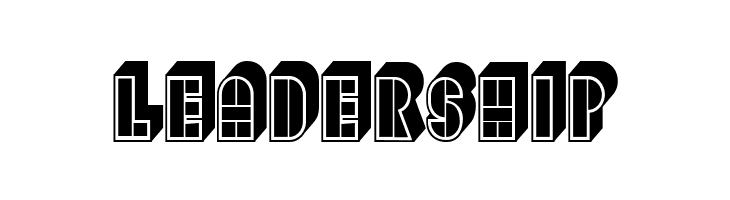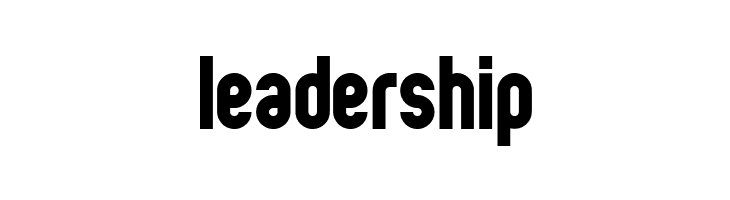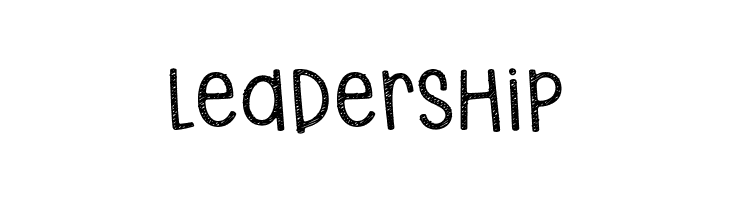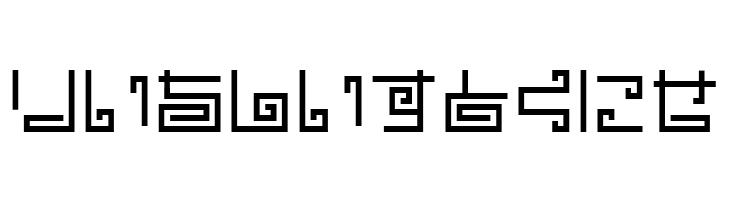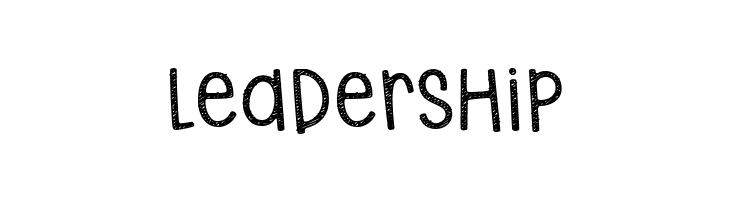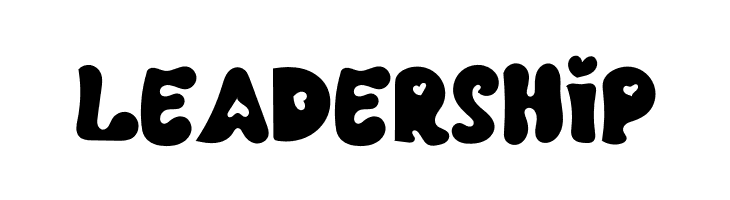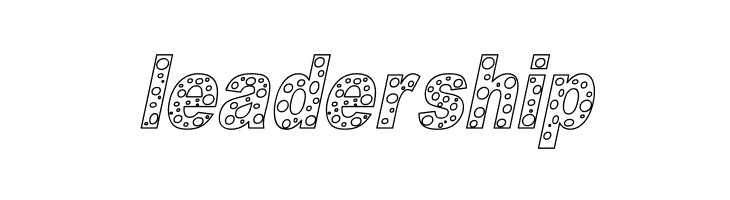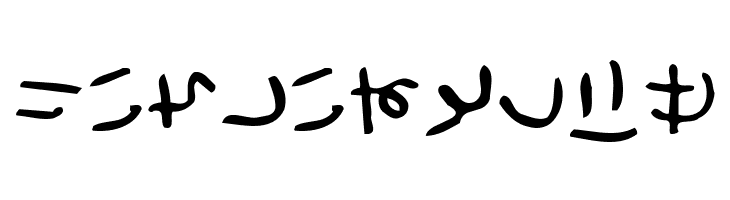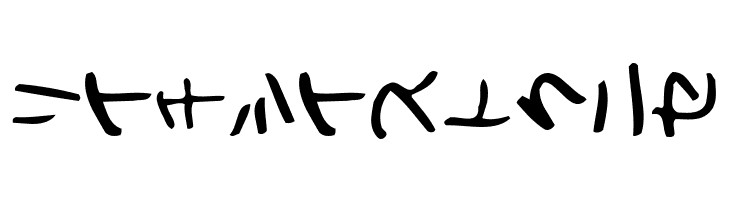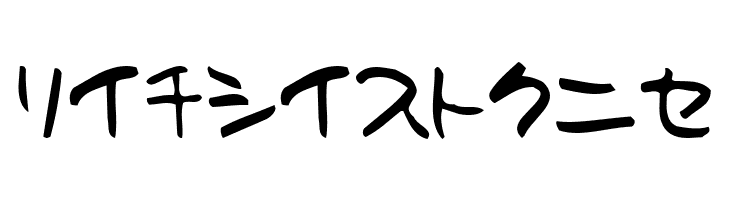
A bold, expressive calligraphic font with dynamic strokes and artistic flair.
A dynamic, calligraphic font with bold, sweeping strokes and a modern flair.
A bold, brush-style font with dynamic, handwritten characteristics.
A dynamic, calligraphy-inspired font with bold, expressive strokes.
A bold, angular font with a playful, artistic style.
A bold, brush-style font with high contrast and dynamic strokes.
A playful, hand-drawn font with a sketched, textured appearance.
A playful, hand-drawn font with a sketched, textured style.
A bold, italic font with dynamic and modern letterforms.
A bold, geometric font with a modern and impactful design.
An ornate and decorative font with intricate floral designs within each letter.
A bold, playful font with rounded, bubbly characters and a retro-modern style.
A bold, playful font with circular holes in each character.
A bold, dotted decorative font with a playful and dynamic style.
A bold, decorative font with a dotted outline pattern and a cursive-like slant.
A modern, geometric font with clean lines and consistent stroke width.
A bold, modern font with a playful yet structured design.
A modern font with a gradient effect, featuring geometric shapes and clean lines.
A clean, elegant font with thin, uniform strokes and a modern, minimalist aesthetic.
A playful, whimsical script font with flowing, interconnected letters.
A playful, handwritten font with a lively and informal style.
A playful, handwritten font with whimsical symbols and a casual style.
A playful, hand-drawn font with whimsical and irregular lines.
A bold, decorative font with a three-dimensional effect and geometric patterns.
A playful, handwritten font with smooth, flowing strokes and a casual vibe.
A playful, bold handwritten font with a lively and friendly appearance.
A playful, bold font with rounded edges and a whimsical style.
A bold, playful handwritten font with thick, rounded strokes.
A playful, casual handwritten font with smooth curves and a friendly appearance.
Expressive, abstract handwritten script with decorative flair.
Hand-drawn doodle font with holiday and summer-themed icons.
Hand-drawn doodle font with playful food and object icons.
A playful, handwritten font with uneven strokes and a whimsical style.
A decorative and abstract script with bold, flowing symbols.